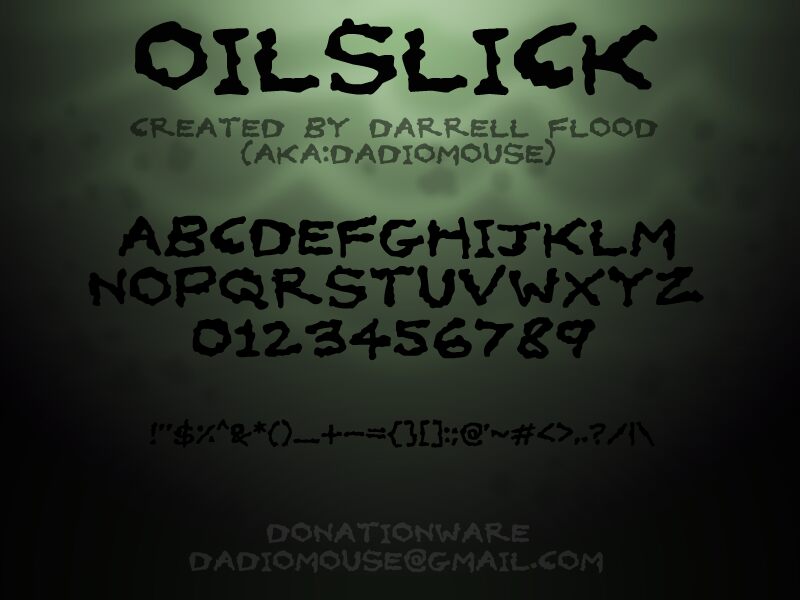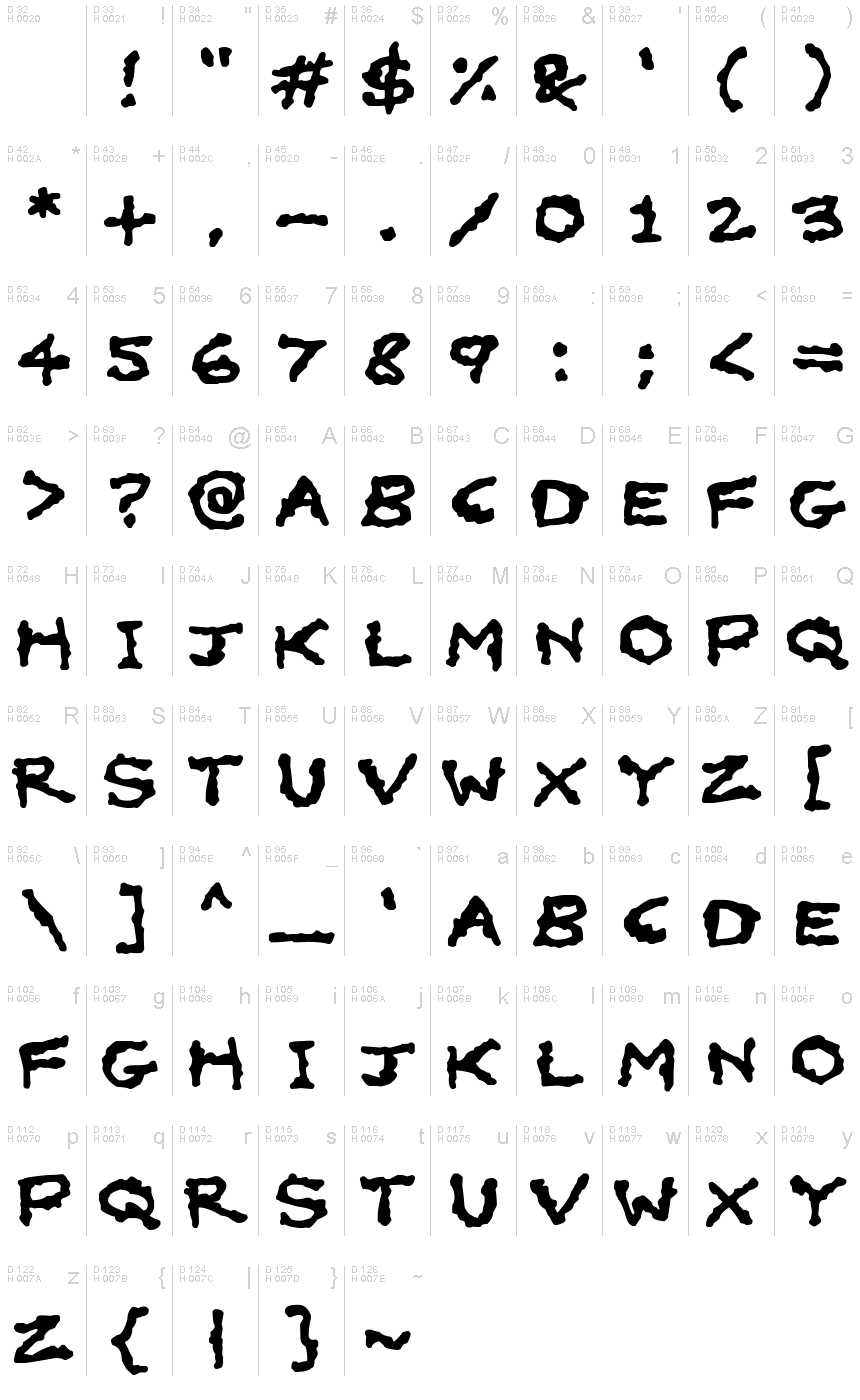
Oilslick
Oilslick is a captivating display font that immediately grabs attention. Crafted by designer Darrell Flood, this typeface exudes a distinct distorted aesthetic, with each letter appearing to have been run through a sludgy, viscous substance. The expanded width and organic, irregular shapes lend it a striking, almost primal quality, evocative of natural phenomena like oil spills or molten lava.
This font's unique visual character makes it well-suited for a range of applications where a bold, attention-grabbing presence is desired. Its versatility extends from intriguing headlines and editorial design to impactful branding and packaging. Oilslick's uncompromising style effortlessly conveys a sense of gritty, industrial edge, making it an excellent choice for projects that seek to communicate power, intensity, or a sense of the unconventional.